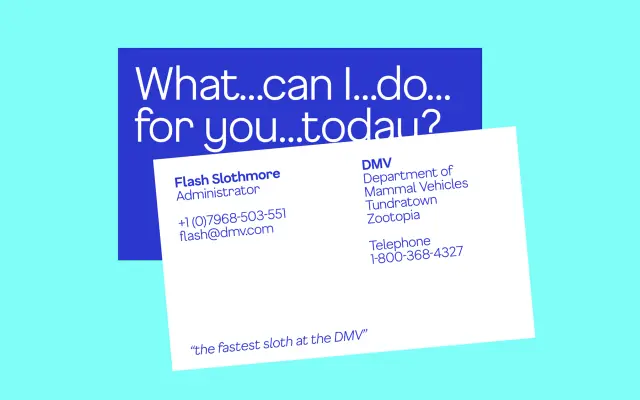
F37 Gruffy
F37 Foundry · Leo Philip · 2020
A soft, character-led display sans by Leo Philip, drawn across six weights with italics for warm headline and packaging work.
A soft display sans by Leo Philip, sitting in F37's character-led display catalogue. Twelve styles cover six weights from Light to Black with matching italics, drawn in a single width with soft terminals and friendly proportions. Pairs comfortably with F37 Drago, F37 Moon and the wider F37 display library for consumer, packaging, kids and lifestyle work that wants warmth without rounding everything off into a bubble.
F37 sits Gruffy in their display catalogue as a soft, character-led sans by Leo Philip, drawn in a single optical width with full upright and italic coverage for friendly headline and packaging work.